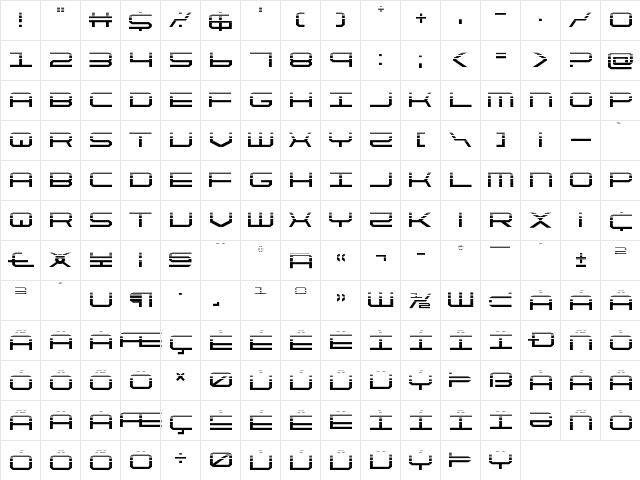
QuickTech Halftone Regular
Design Context for QuickTech Halftone Typeface
QuickTech Halftone has a distinctly futuristic character, with geometric precision and clean angles that feel at home in technology, gaming, and sci-fi contexts.
Pro Tip: Try QuickTech Halftone with generous letter-spacing in UI labels and navigation — the geometric forms benefit from room to breathe.